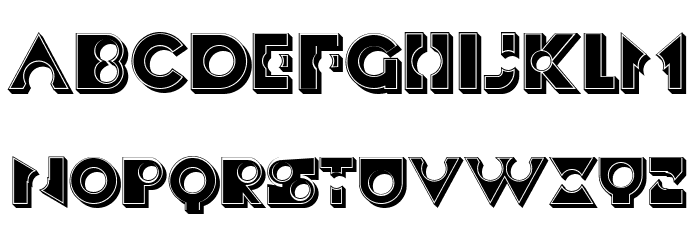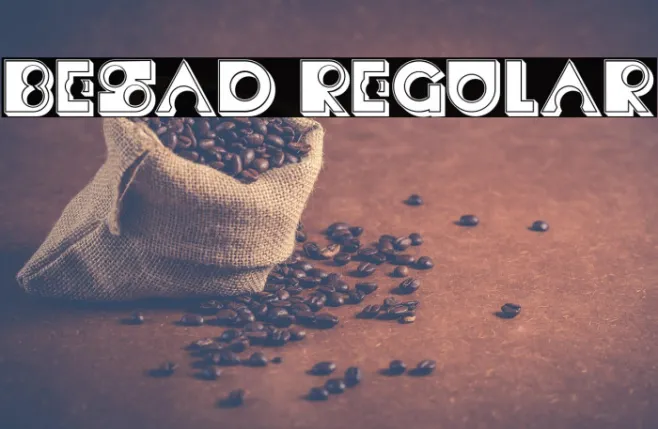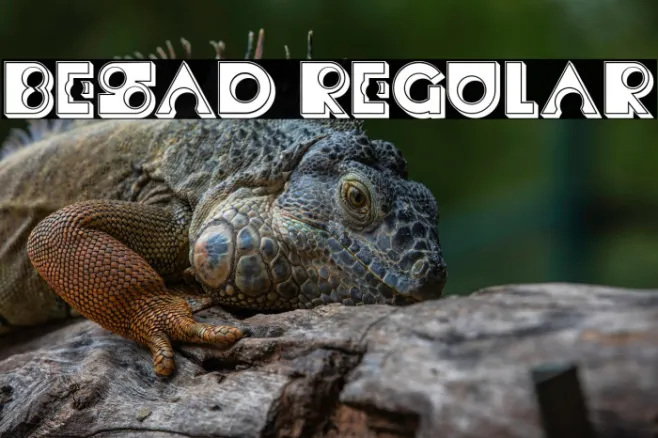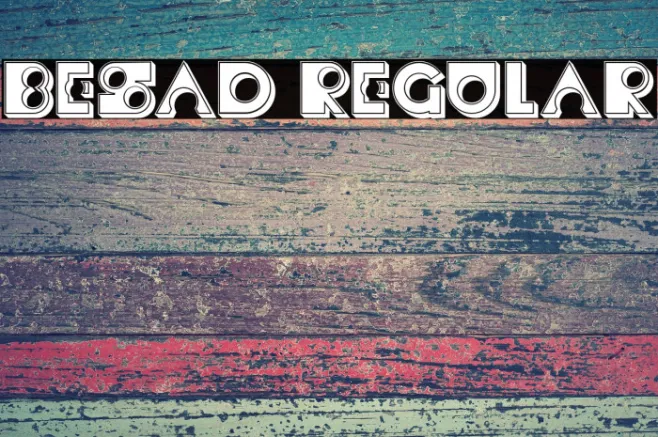
Besad Regular Font
This font features a bold and geometric design with a strong emphasis on angular shapes and sharp edges. The characters are constructed with a three-dimensional effect, giving them a striking and modern appearance. The use of negative space within the letters adds an intriguing visual complexity, making it ideal for attention-grabbing headlines or creative projects. The uppercase letters are particularly distinctive, with a consistent style that maintains readability while showcasing its unique aesthetic. The font's design is both futuristic and retro, blending elements that make it versatile for various applications.
A bold, geometric font with a three-dimensional effect and angular shapes.
- Proposed Projects: Ideal for branding, posters, album covers, and any project requiring a modern, eye-catching typeface.